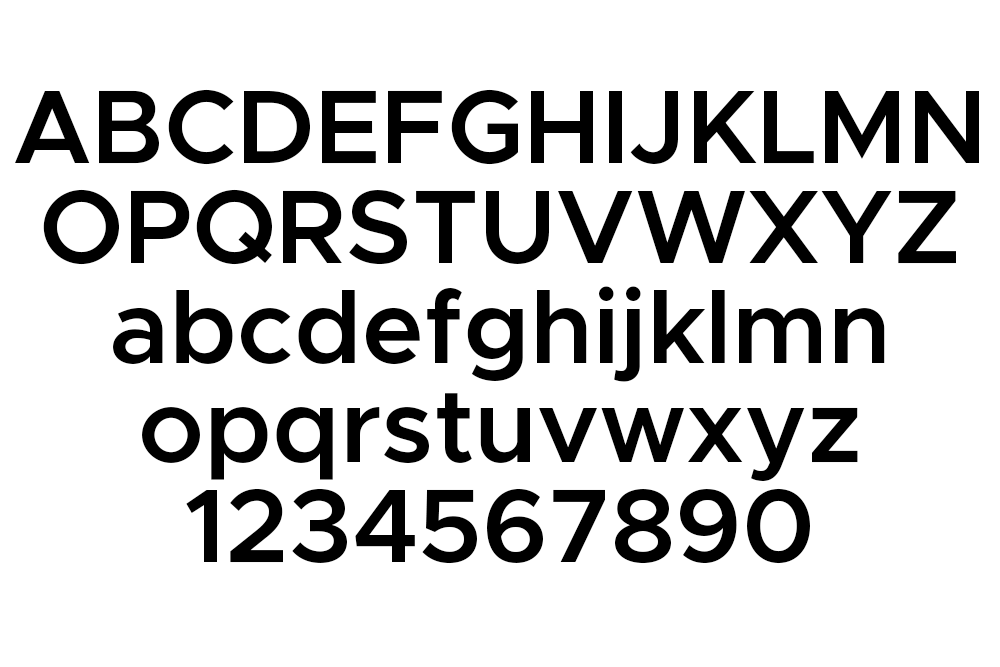
Spotify Font – Bold, Clean, and Geometric
If you’ve ever looked closely at the Spotify logo, you might’ve noticed its sleek and modern vibe. That’s no accident — the logo uses Gotham Medium, a geometric sans serif created by Tobias Frere-Jones. It’s bold, clean, and easy to recognize, which makes it a perfect fit for a global brand like Spotify.
Interestingly, the design team didn’t use Gotham straight out of the box. They made a few tweaks — like adjusting the dot above the “i” — to give it a more unique and ownable look. This small detail helps set the logo apart while still keeping things simple.
While the Spotify logo itself isn’t a font you can type with, Metropolis by Chris Simpson is a great free alternative. It shares that same modern, structured feel and works well in branding, apps, and user interfaces.